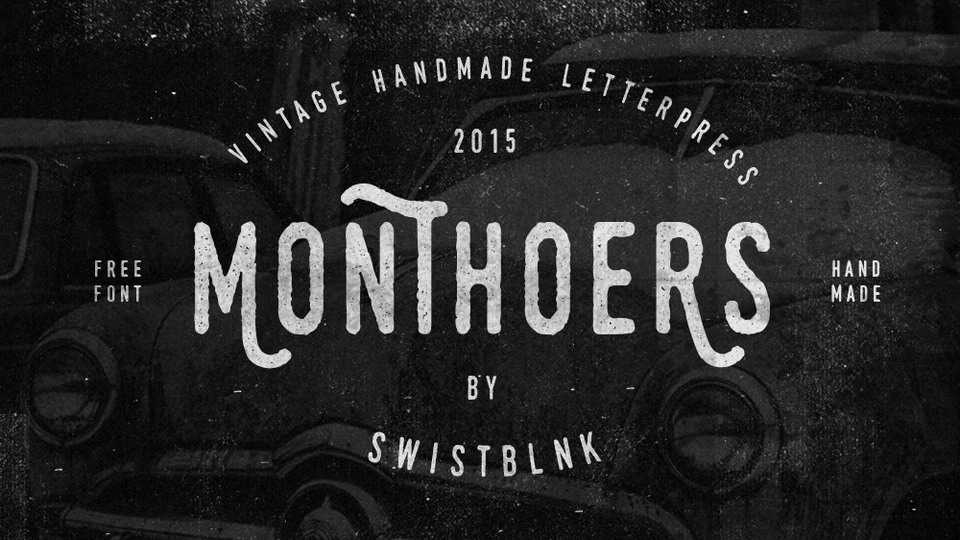
Download Monthoers font, a handmade modern vintage textured display typeface, which is combining the style of classic typography with an modern handlettering style.
Designer: Agga Swistblnk